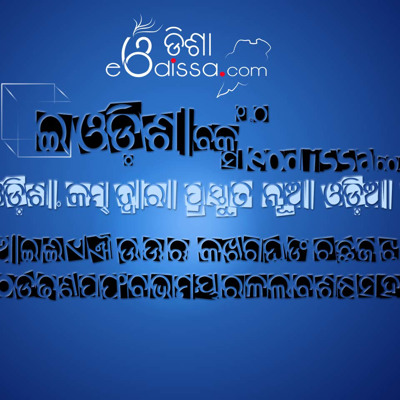
1135 0eOdissa-Majhi-Uni Hatalekha by eodissa
grat font, my fav. 1st odia handwritten font
eOdissaKaanthaUni by eodissa
1st Odia grungy font. Great for people who love grungy designs in fonts.